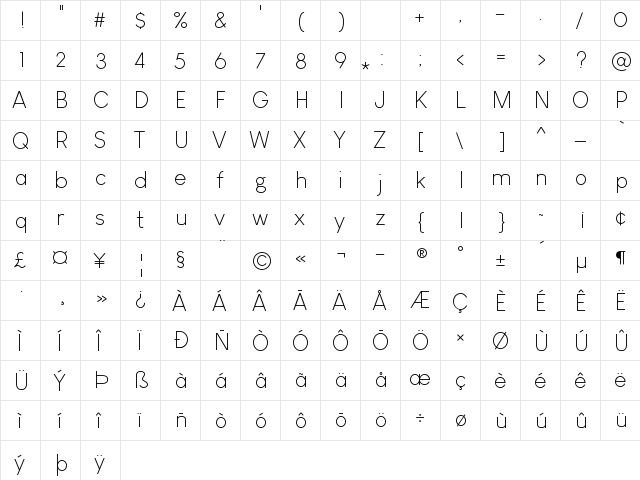
Louis George Cafe Light Regular
| Designer | Yining Chen |
Design Context for Louis George Cafe Light Typeface
Louis George Cafe Light takes a measured approach to typography — its balanced proportions and neutral character make it a reliable workhorse for both digital and print work. Its slender proportions lend an understated elegance to any composition.
Pro Tip: Use Louis George Cafe Light in both headline and body roles to test its range before committing to a single application.